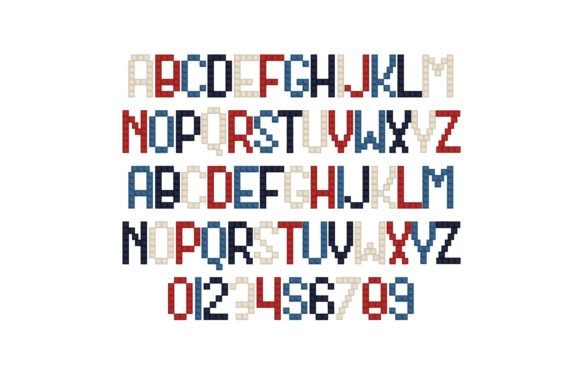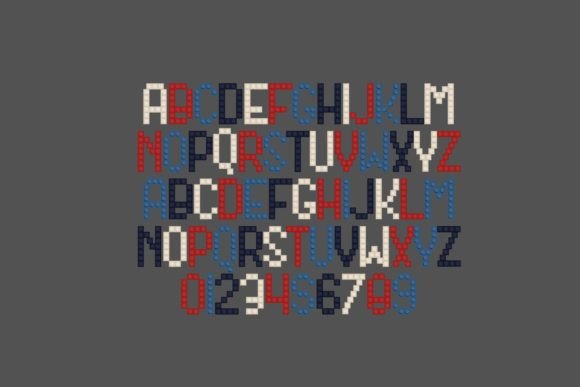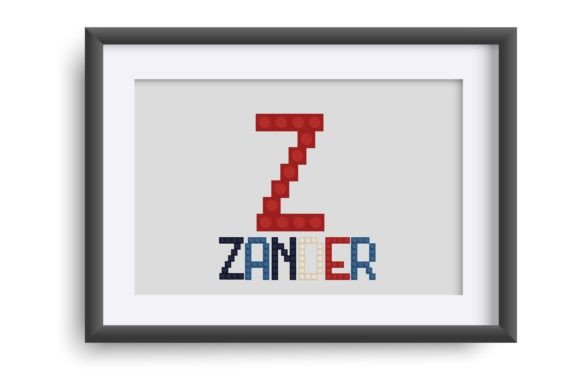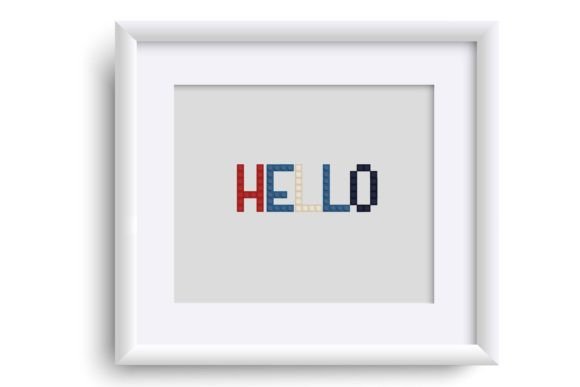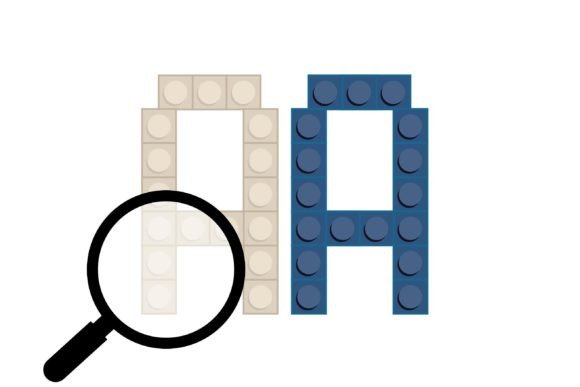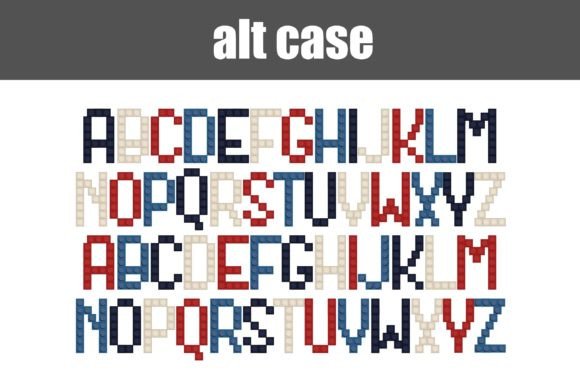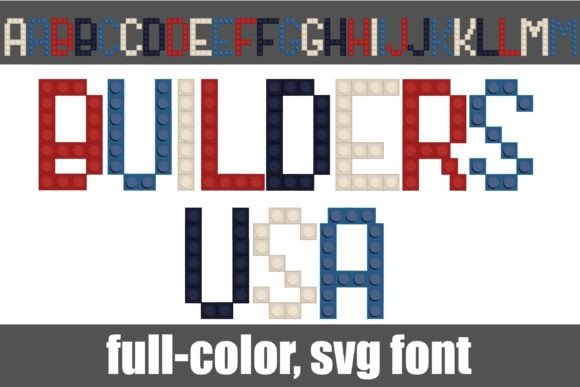
Introducing Builders Usa Font: A Vibrant and Versatile Typeface for Designers and Crafters
Are you looking for a font that can add a pop of color and fun to your designs? Look no further than Builders Usa Font, a full-color font featuring building block lettering with a bold red, white, and blue color palette. This exciting typeface is perfect for designers and crafters who want to create eye-catching projects that stand out from the crowd.
What is Builders Usa Font?
Builders Usa Font is an OpenType full-color (SVG) font that can be installed like any normal .otf font. This means that Mac users can install it via FontBook, while Windows users can use their preferred font manager or Control Panel. The font features building block lettering with a classic red, white, and blue color scheme that’s reminiscent of childhood nostalgia.
Key Features of Builders Usa Font
• Full-color font: Builders Usa Font is a full-color font that features a range of vibrant colors, including red, white, and blue.
• Building block lettering: The font features building block lettering that’s perfect for creating fun and playful designs.
• Alt version with additional colors: The font comes with an alt version that contains additional colors for all the letters, accessible through your system’s character map.
Tips for Using Builders Usa Font
• Use it for crafting projects: Builders Usa Font is perfect for crafting projects, such as making signs, cards, and other DIY projects.
• Experiment with different colors: While the font comes with a standard red, white, and blue color palette, you can experiment with different colors to create unique designs.
Builders Usa Font is a vibrant and versatile typeface that’s perfect for designers and crafters who want to create eye-catching projects. With its bold red, white, and blue color palette and building block lettering, this font is sure to add a pop of fun and personality to any design. Whether you’re making signs, cards, or other DIY projects, or creating branding materials for commercial clients, Builders Usa Font is a great choice.